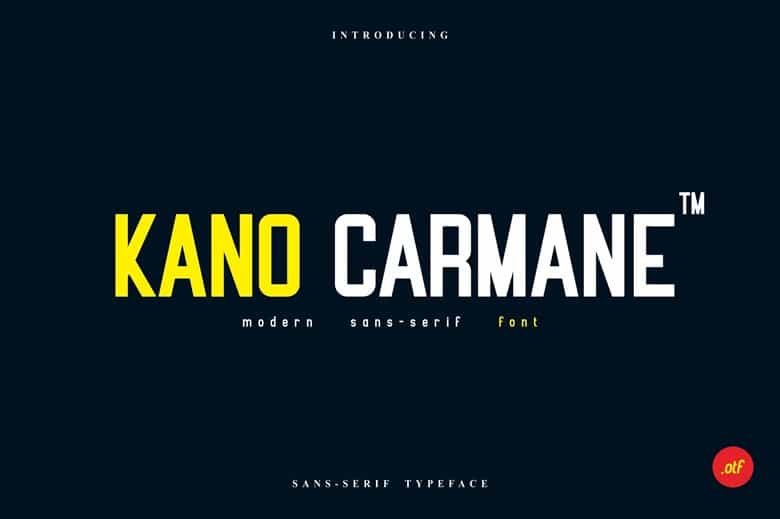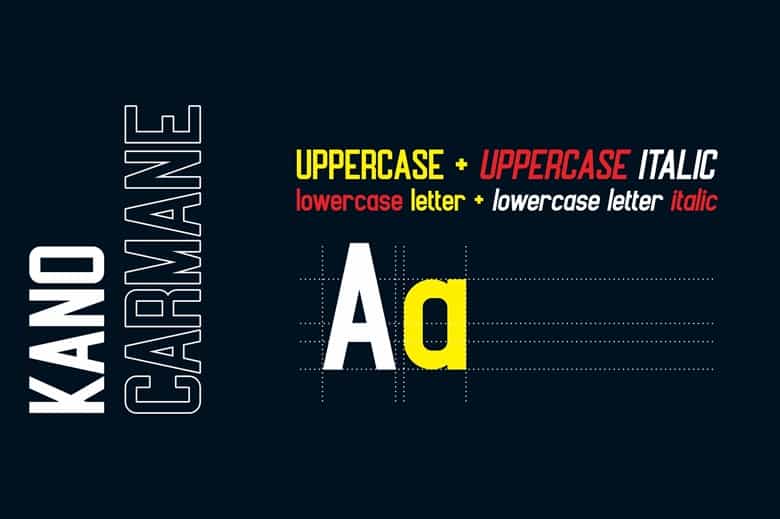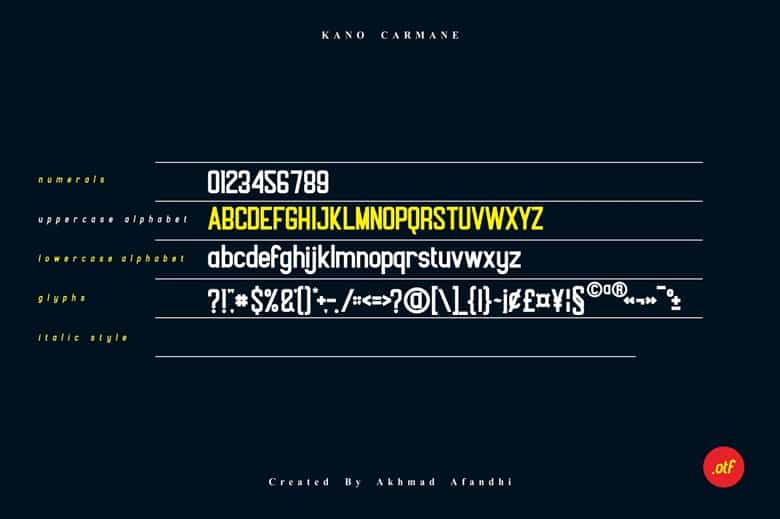
Kano Carmane is a clean and minimal sans serif font that does not lack character. This typeface is sophisticated and clean and will surely make any film poster or headline look good. Its outline is perfect for a composed of large and uppercase letters, and easy to read headings and subheadings.